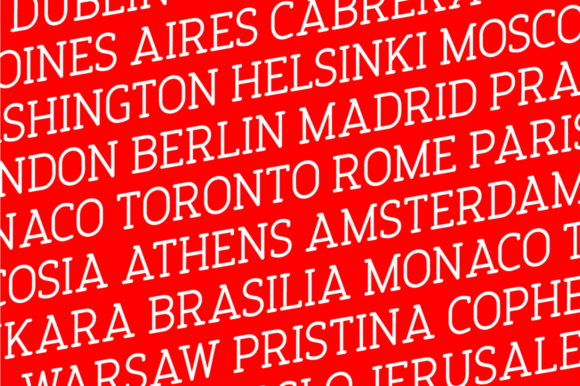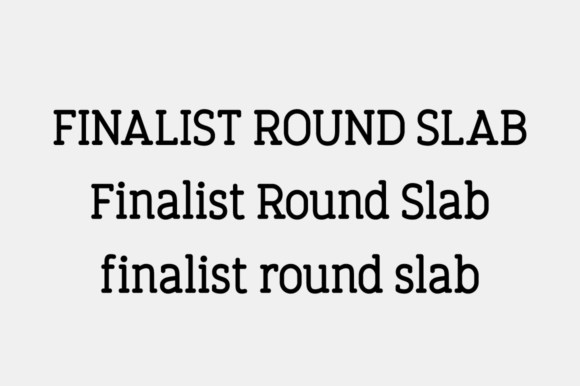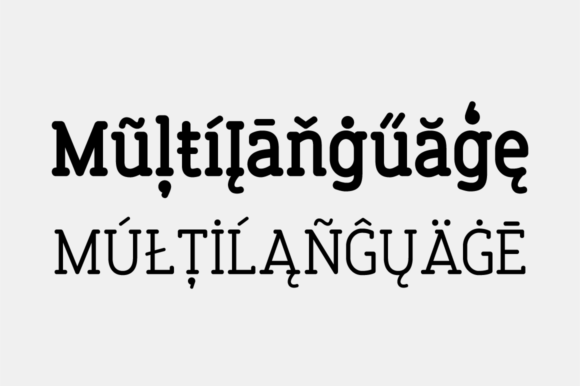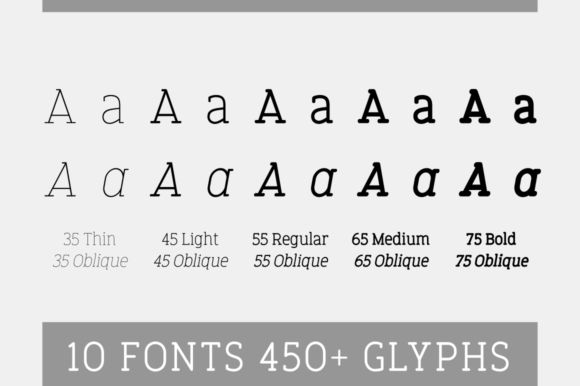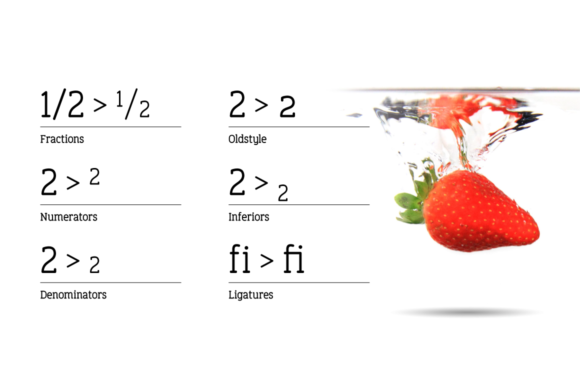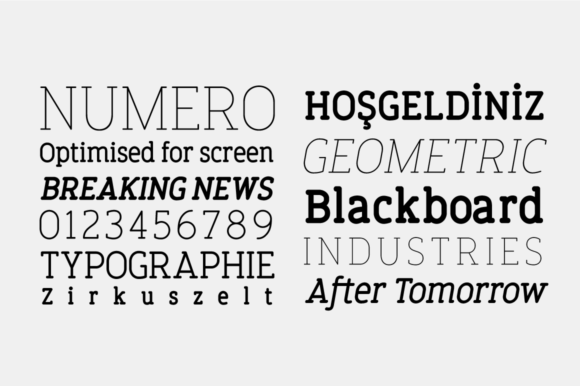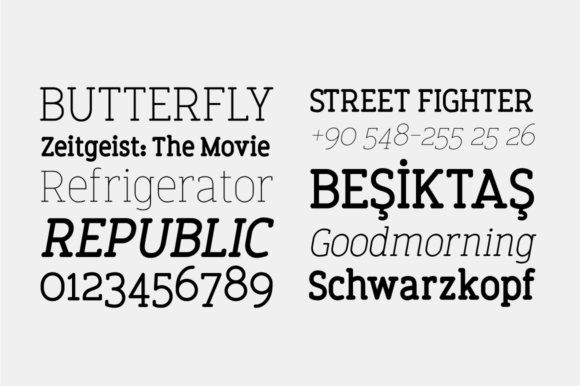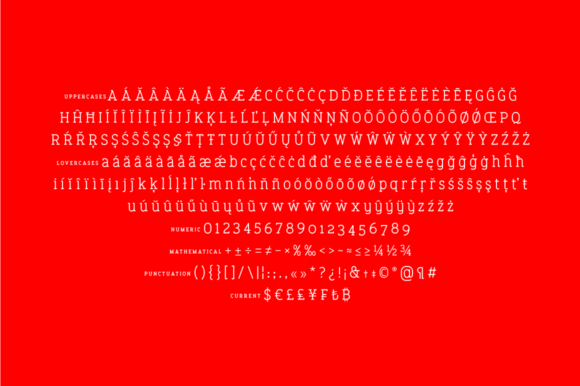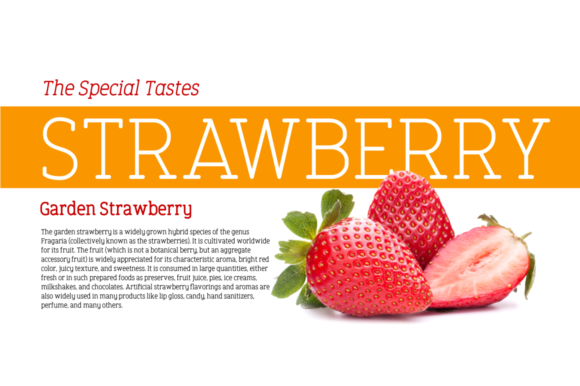
Finalist Round Slab Font
FINALIST ROUND SLAB FONT SPECIMEN
Finalist Round Slab is a minimal and neat slab serif font. It can easily be matched to an incredibly large set of projects, so add it to your creative ideas and notice how it makes them stand out!